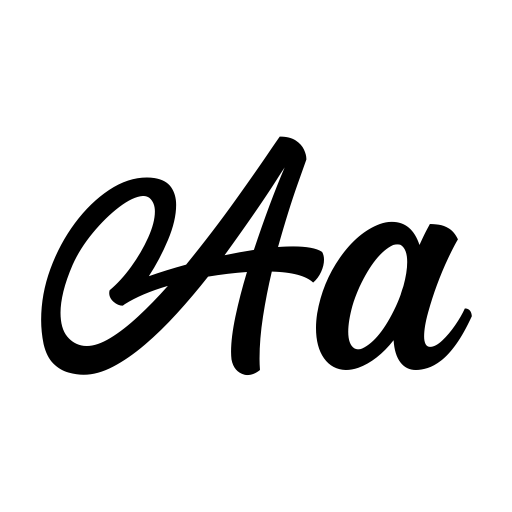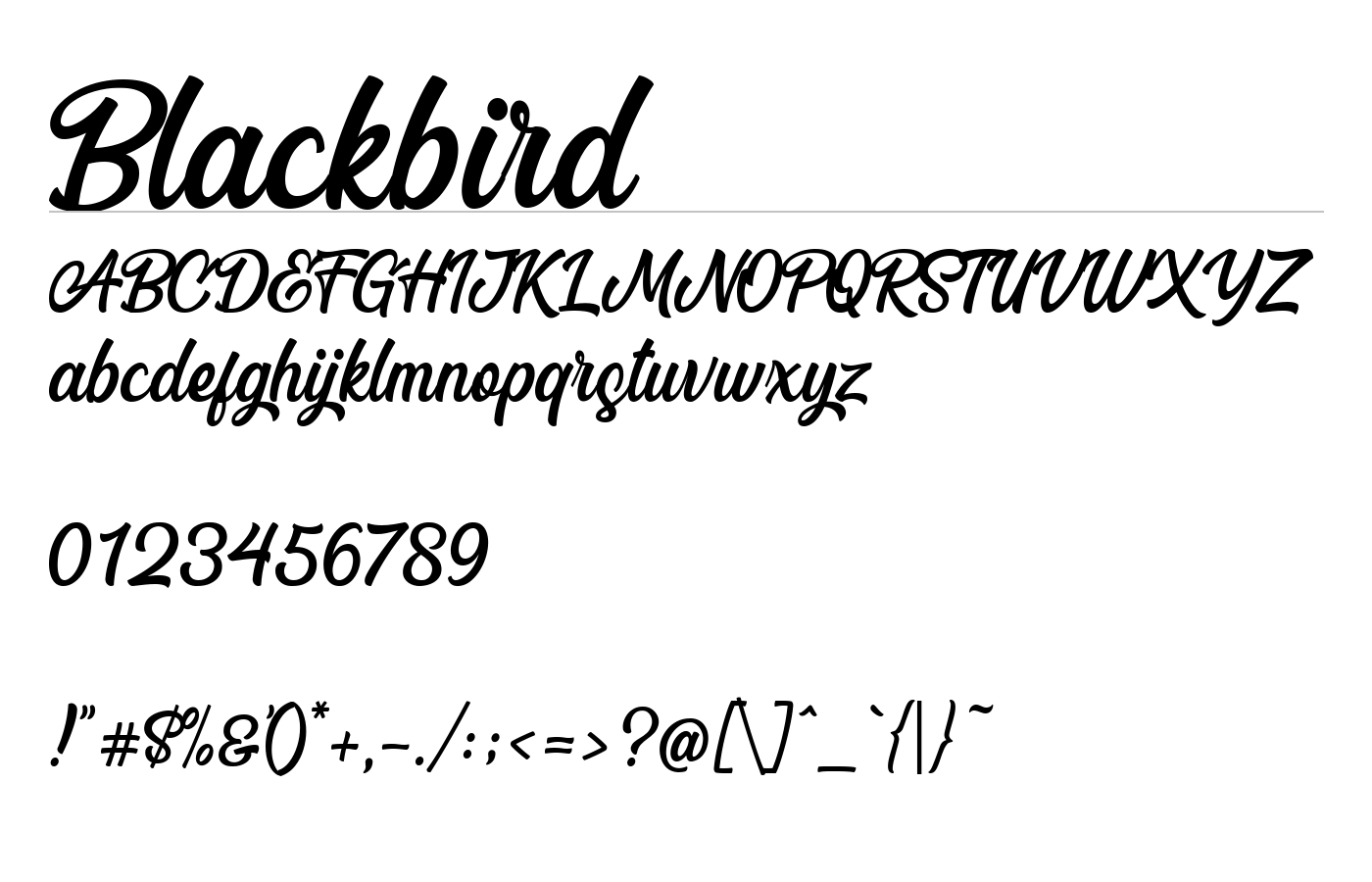
Blackbird is a playful and elegant script font that features smooth, flowing strokes with moderate contrast, lending it a lively yet refined look. Its rounded, connected letterforms and slightly condensed width make it ideal for creative branding, invitations, and headlines that seek a personal, handcrafted feel without sacrificing readability. This font works beautifully where a friendly and stylish impression is desired, such as in fashion, lifestyle, and boutique design projects.
Blackbird Font
About Blackbird Font